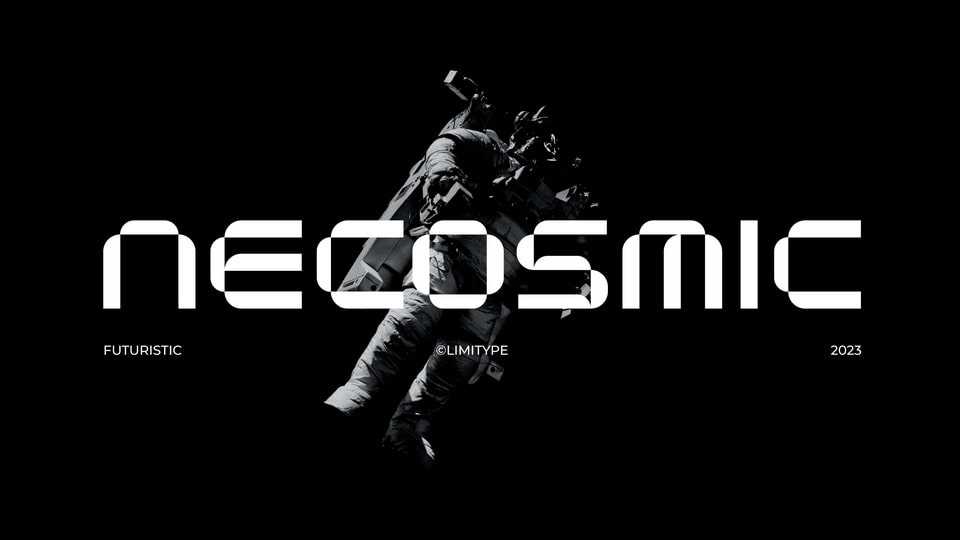
Download Necosmic font, a display typeface that radiates futuristic and modern style. Specifically designed to seamlessly integrate into technology, futuristic, and outer space themes.